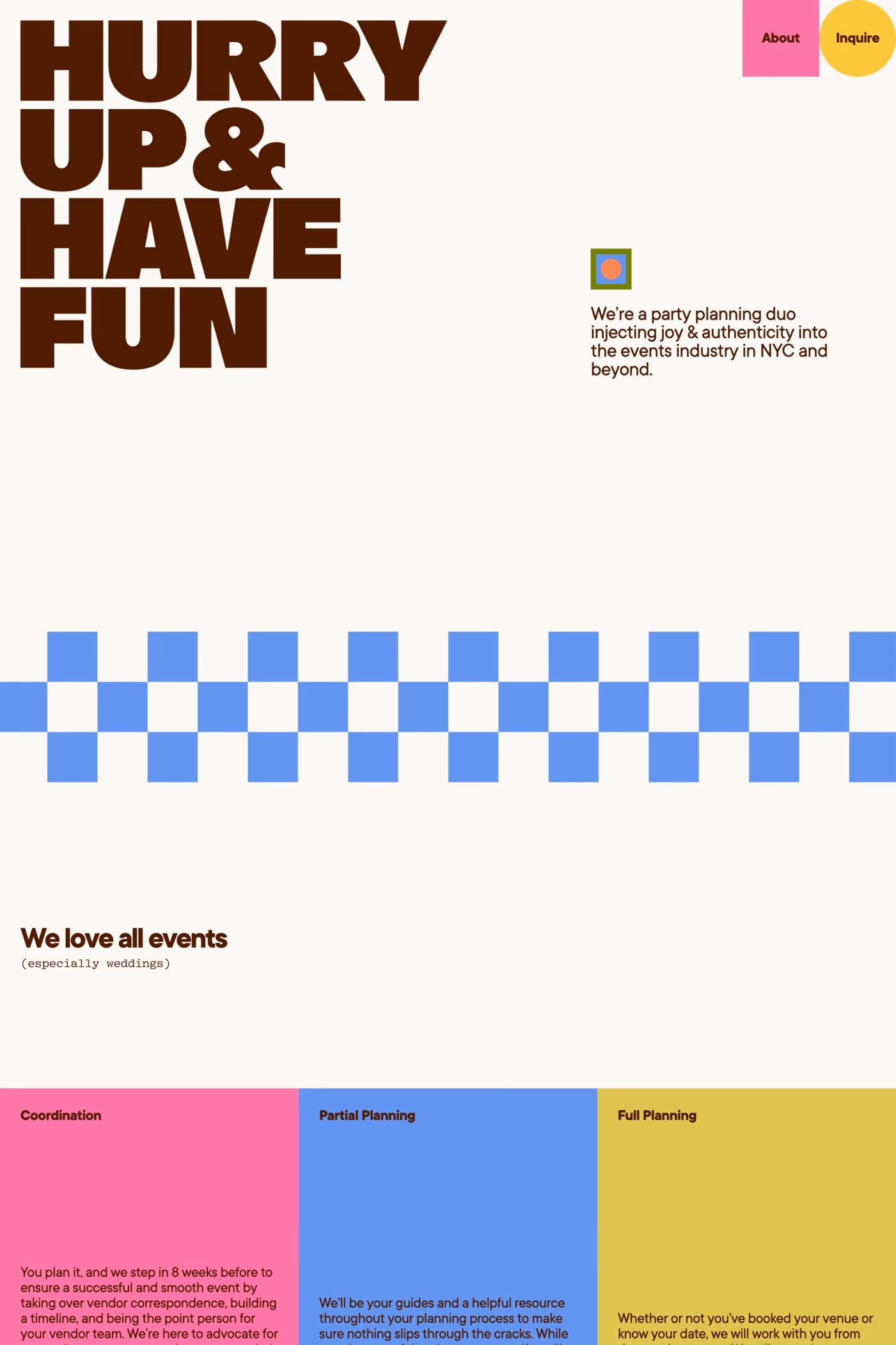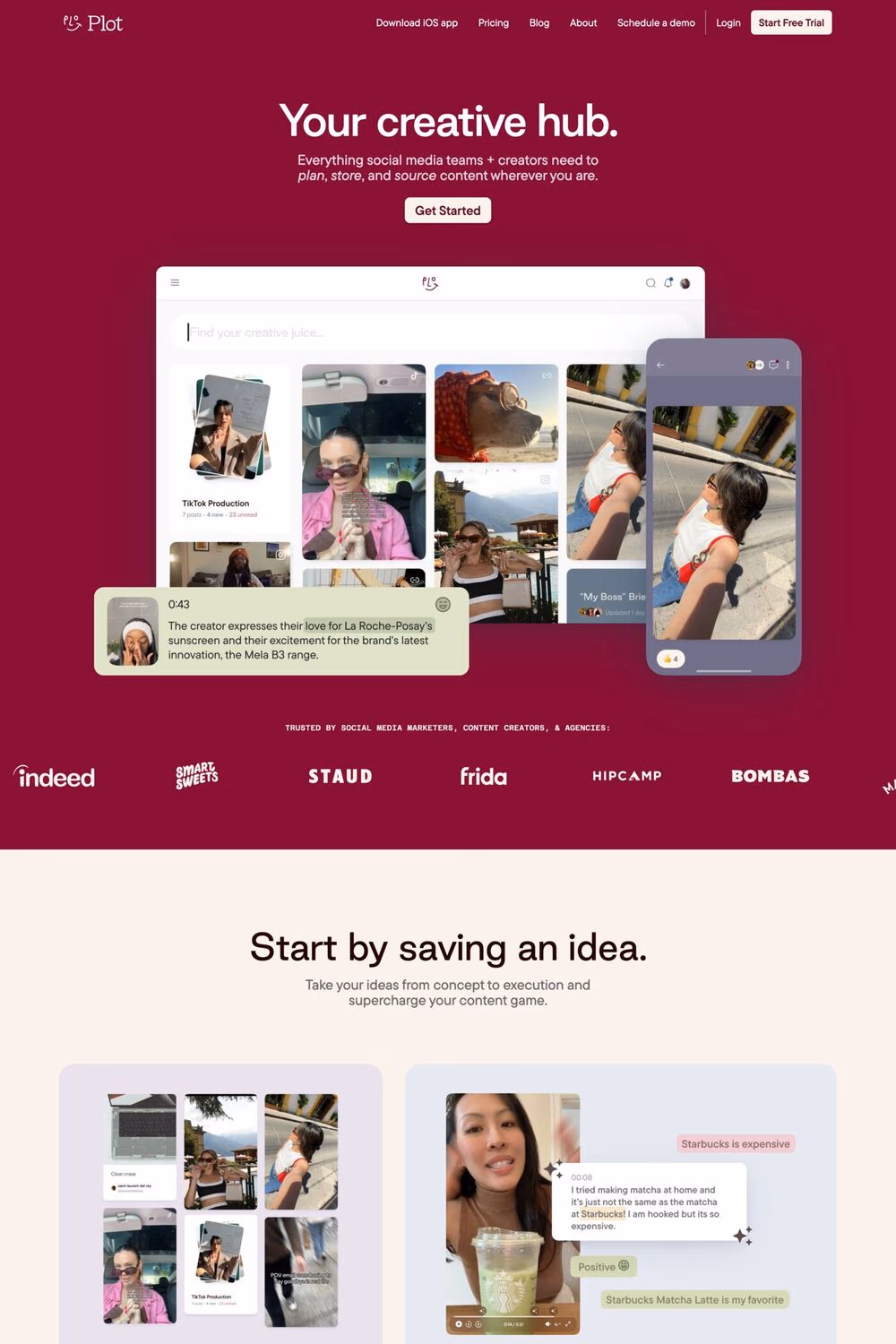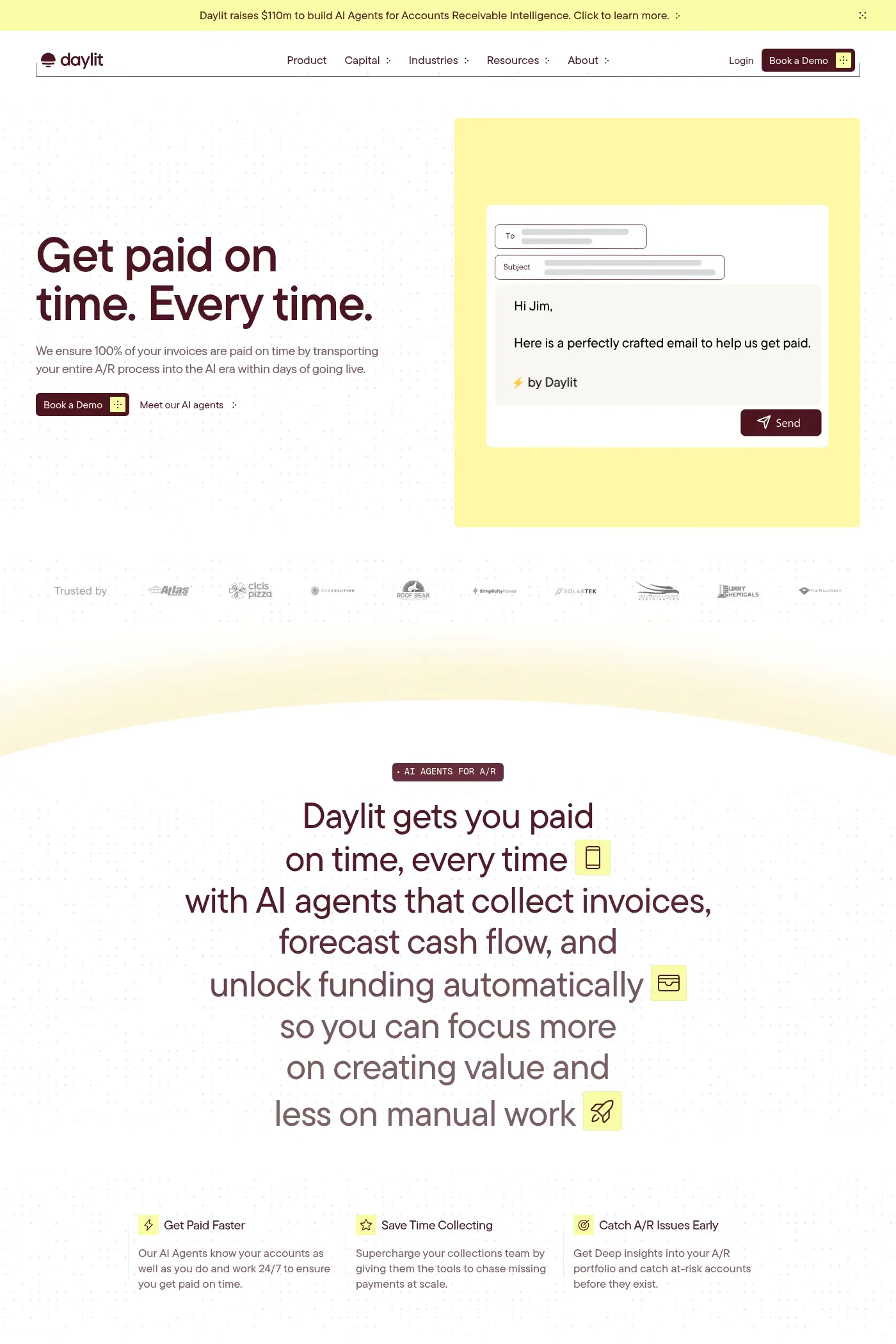
TT Commons is a sans-serif typeface from Type Type.
TT Commons™ Classic is a universal sans serif with a minimal contrast of strokes, a closed aperture and geometric shapes of characters. The design of the typeface was developed for the widest possible range of tasks with which any quality corporate font is required to cope.